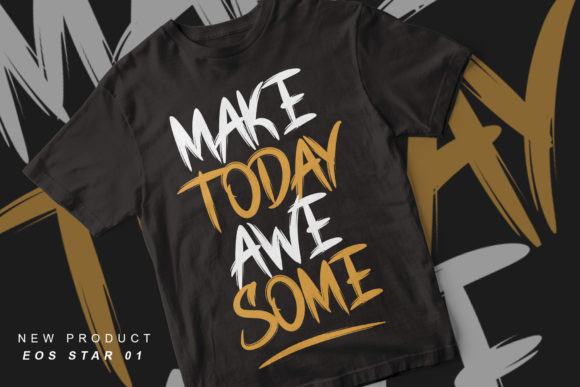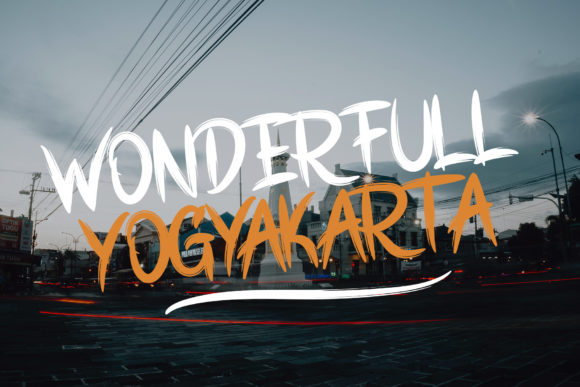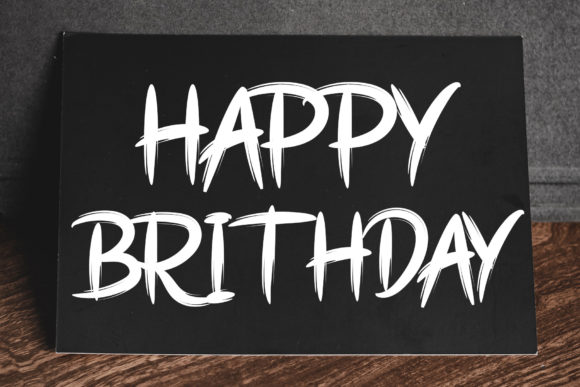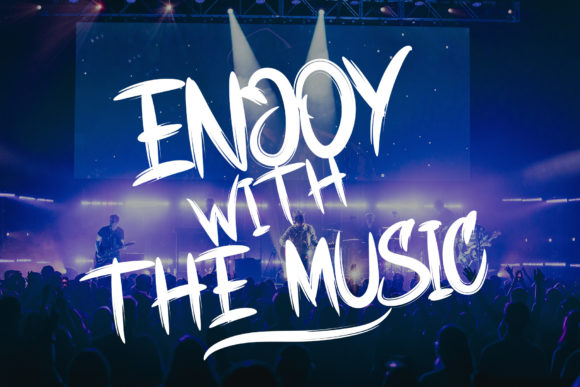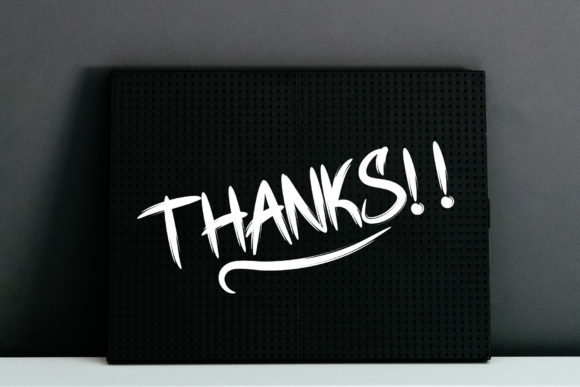
Unleash the Mystique: Discover the Enchanting Black Magic Font
Are you a designer or crafter looking for a unique and captivating font to add a touch of magic to your creations? Look no further than the Black Magic Font, a natural dry brush display font that’s perfect for a wide range of design projects. In this article, we’ll delve into the world of Black Magic Font, exploring its features, uses, and benefits, and uncover the secrets to making your designs truly spellbinding.
The Charm of Black Magic Font
Black Magic Font is a one-of-a-kind, handcrafted display font that exudes a sense of mystique and wonder. Its natural, dry brush texture gives it a distinctive, organic feel that’s reminiscent of hand-painted signs and murals. With its bold, expressive strokes and fluid letterforms, Black Magic Font is the perfect choice for designers and crafters seeking to add a dash of personality and whimsy to their work.
Black Magic Font is incredibly versatile, making it suitable for a diverse array of design applications. Here are just a few ideas to get you started:
- Logos: Create a memorable and eye-catching logo that showcases your brand’s personality and style.
- Quotes and Posters: Add a touch of drama and flair to your inspirational quotes and poster designs.
- Playful Lettering: Use Black Magic Font to create engaging and interactive lettering pieces that capture your audience’s attention.
- Clothing and Apparel: Design unique and stylish clothing and accessories that showcase your creativity and flair.
- Any Other Design: From invitations and greeting cards to social media graphics and website headers, Black Magic Font can add a touch of magic to any design project.
Key Features of Black Magic Font
So, what makes Black Magic Font so special? Here are some of its key features:
- Natural Dry Brush Texture: Gives your designs a unique, hand-painted look that’s full of character and personality.
- Bold and Expressive Strokes: Create a lasting impression with Black Magic Font’s bold, confident strokes.
- Fluid Letterforms: The font’s fluid letterforms ensure a smooth, harmonious flow that’s easy on the eyes.
Tips and Tricks for Getting the Most Out of Black Magic Font
To truly unleash the magic of Black Magic Font, here are some expert tips and tricks to keep in mind:
- Experiment with Color: Try pairing Black Magic Font with a range of colors to create a unique and eye-catching design.
- Play with Texture: Combine Black Magic Font with other textures and patterns to add depth and interest to your design.
- Don’t be Afraid to Get Creative: Black Magic Font is designed to be flexible and versatile, so don’t be afraid to push the boundaries and try something new.
In conclusion, Black Magic Font is a truly enchanting display font that’s perfect for designers and crafters seeking to add a touch of magic to their creations. With its natural dry brush texture, bold and expressive strokes, and fluid letterforms, Black Magic Font is the perfect choice for a wide range of design projects. So why wait? Unlock the secrets of Black Magic Font and discover a world of creative possibilities.